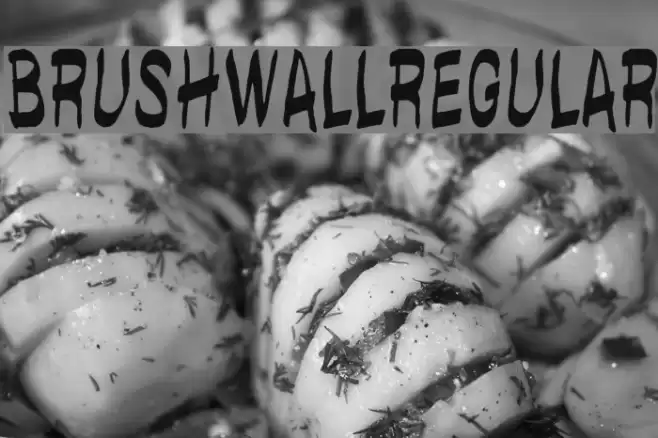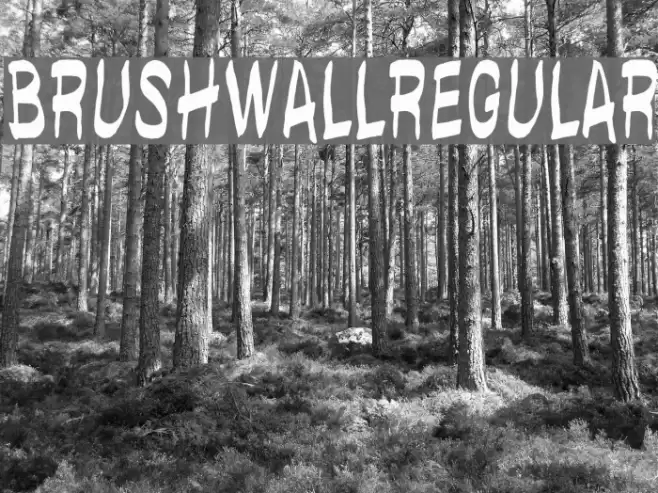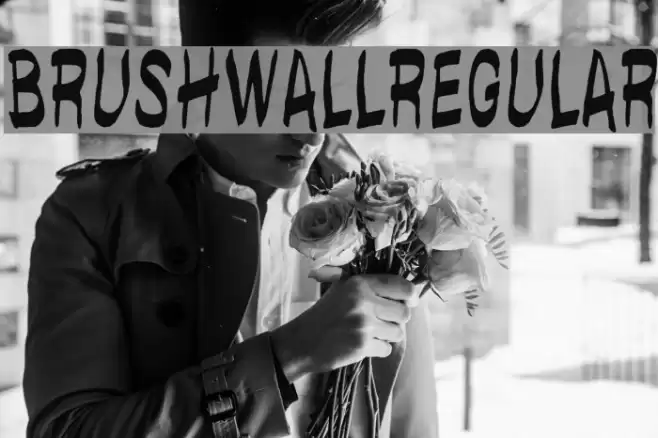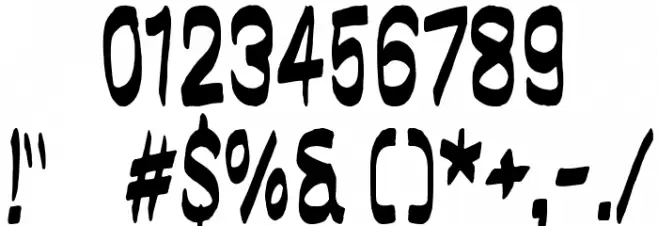
brushwallregular Font
brushwallregular Description
This font features a bold, hand-drawn style with a brush-like texture, giving it a casual and artistic appearance. The characters are slightly irregular, adding to the organic feel of the design. The uppercase letters are prominent and dynamic, while the lowercase letters maintain a consistent flow. Numbers and special characters are equally expressive, maintaining the overall aesthetic. The font's playful and informal nature makes it suitable for creative projects that require a personal touch.
A bold, hand-drawn brush-style font with an artistic and casual vibe from Uncategorized fonts.